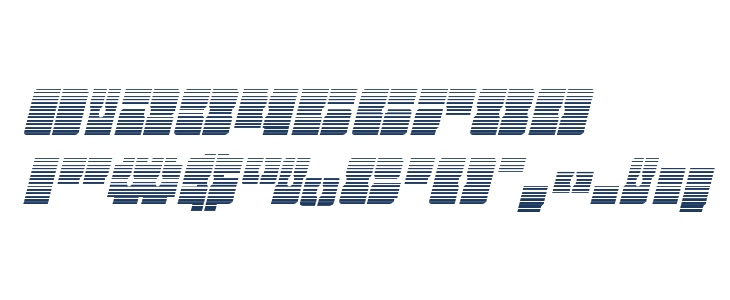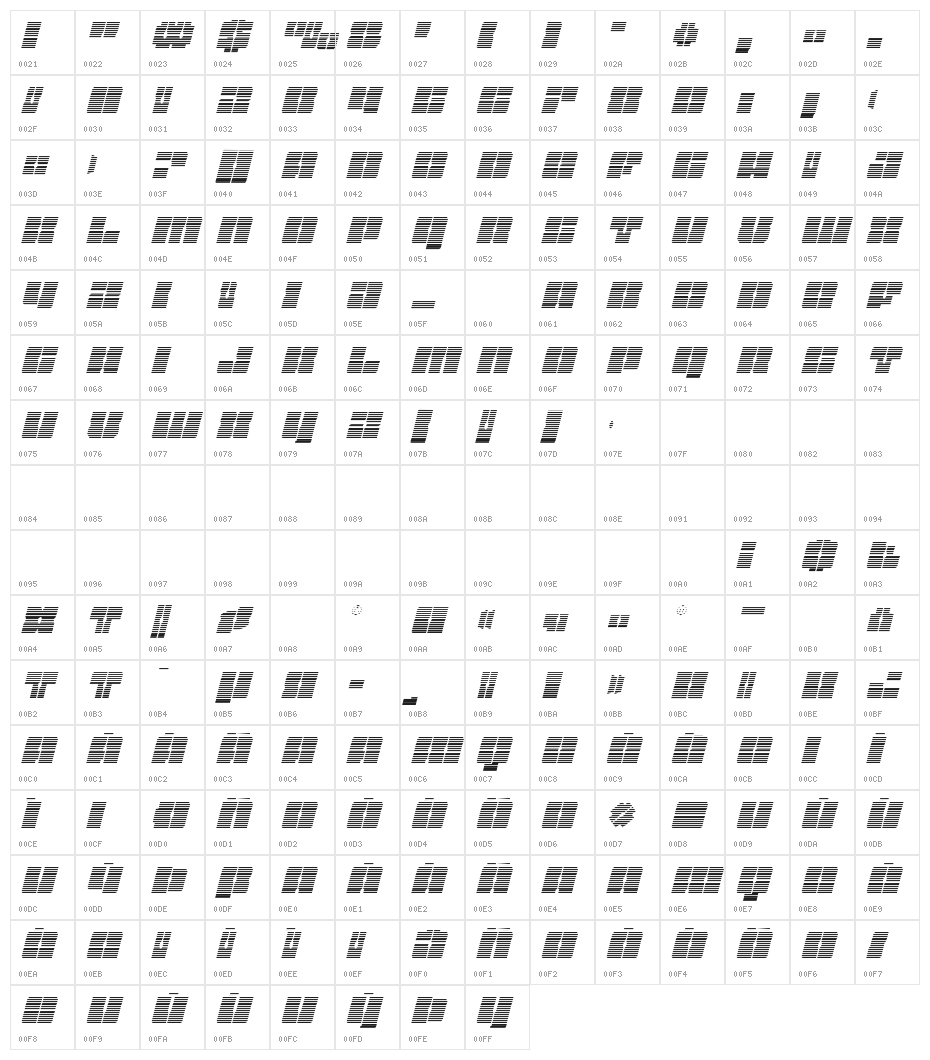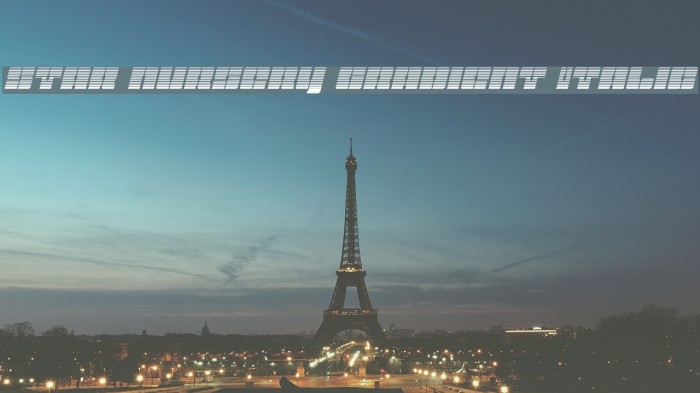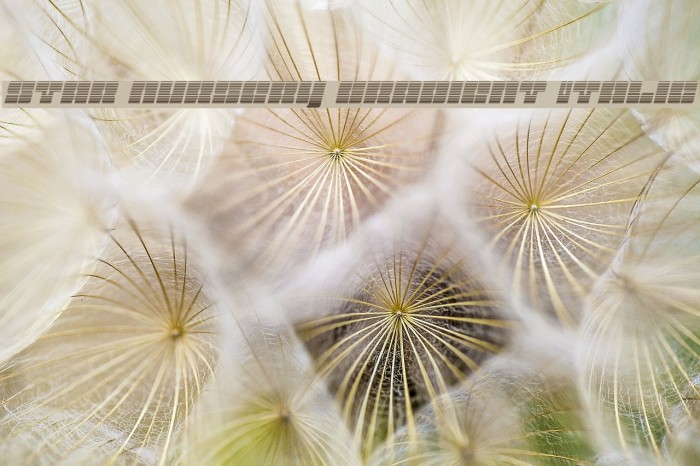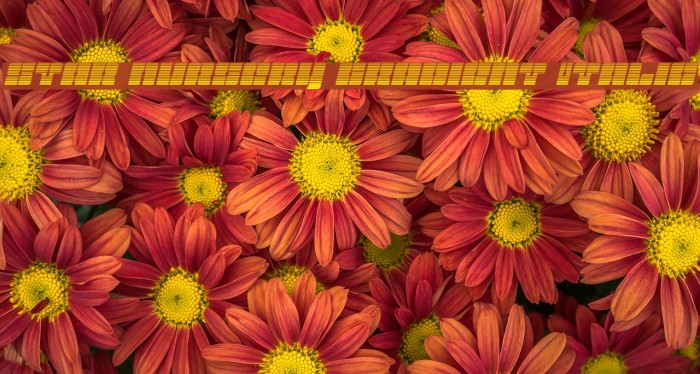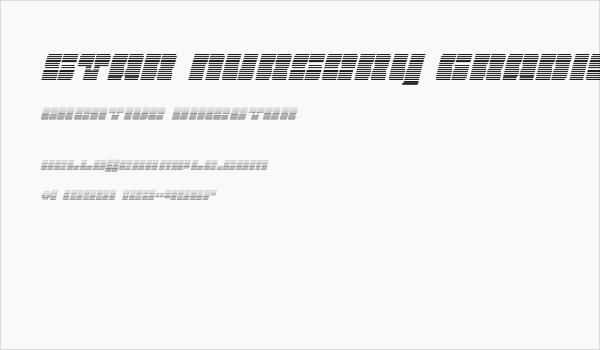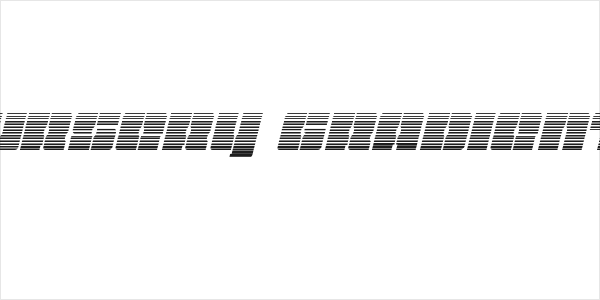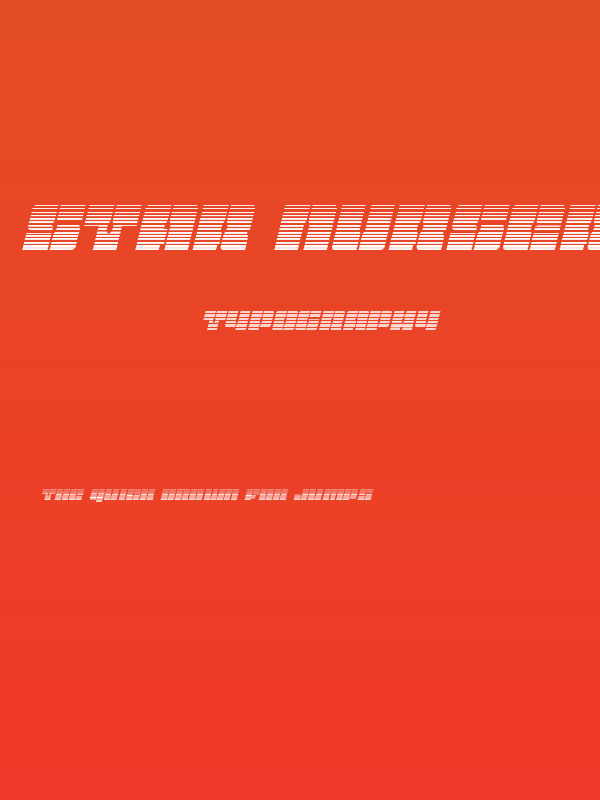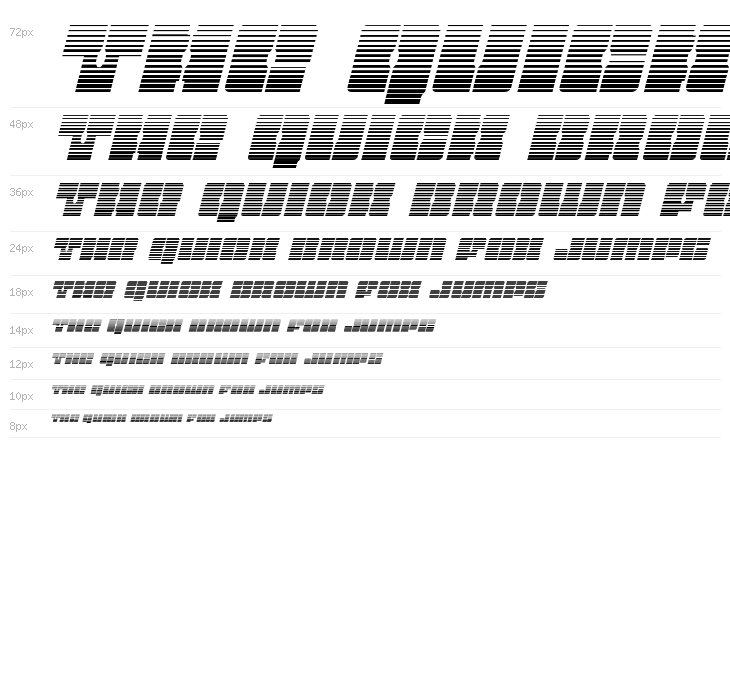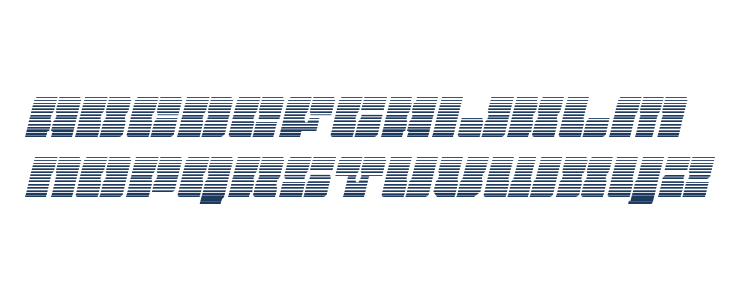
Star Nursery Gradient Italic Font
Star Nursery Gradient Italic Description
This font features a unique gradient effect with horizontal lines creating a sense of motion and depth. The italicized style adds a dynamic and forward-leaning appearance, making it stand out. Each character is composed of parallel lines that vary in thickness, giving it a modern and futuristic look. The uppercase and lowercase letters maintain consistency in style, while the numbers and special characters integrate seamlessly. This design is visually striking and can capture attention with its bold and innovative approach.
Proposed ProjectsIdeal for futuristic branding, tech-related projects, modern posters, and digital media.